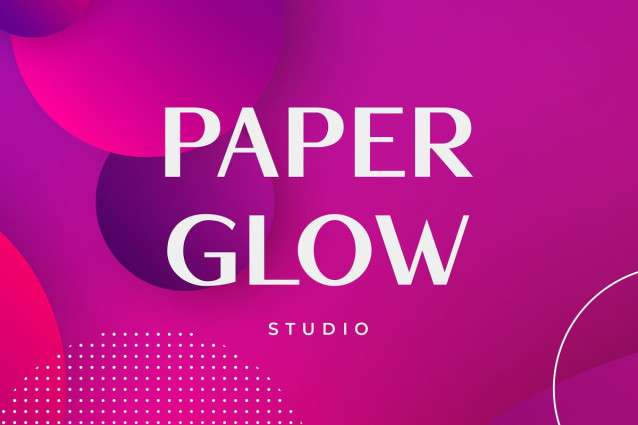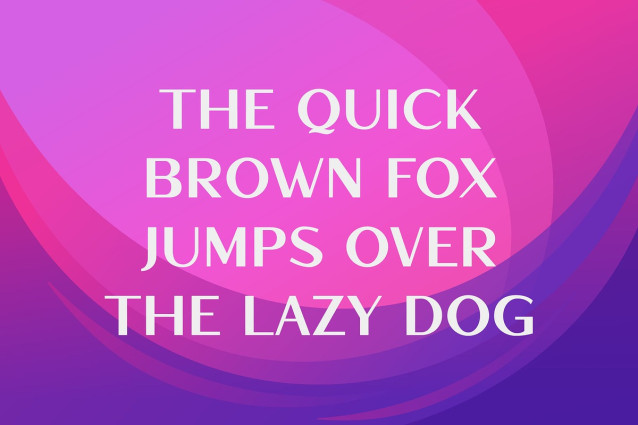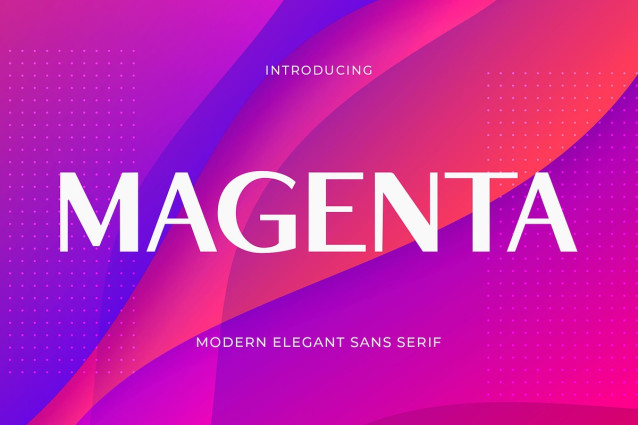
Magenta Sans Font
Magenta Sans Font, modern sans serif font with elegant style this is perfect for branding, logos, invitation, magazines, product packaging and more.